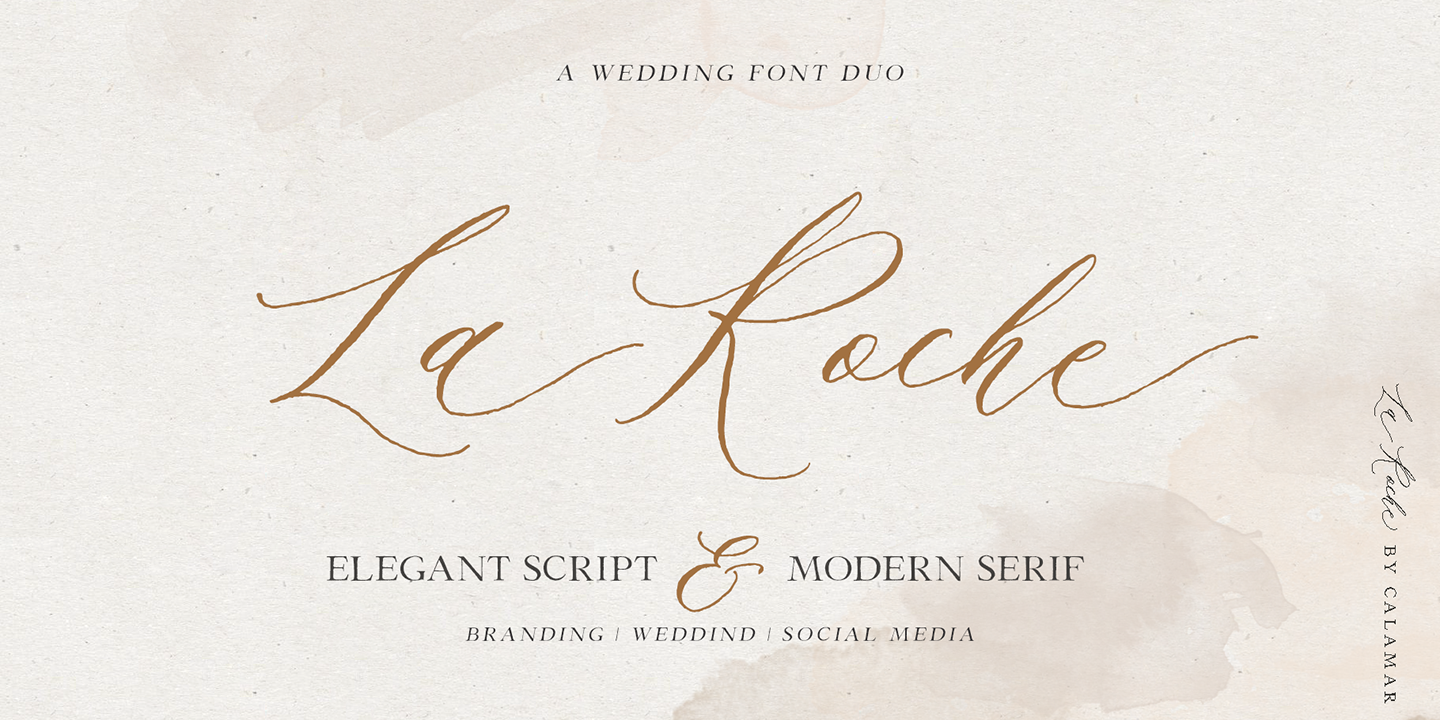
La Roche Font is perfect for luxury brand logos, high-end restaurant menus, wedding invitations, fashion magazine headlines, cosmetic packaging, jewelry branding, premium wine labels, elegant business cards, boutique hotel signage, and sophisticated editorial designs.
La Roche Font is exciting because it embodies timeless French elegance and sophistication through its refined letterforms that evoke the classic beauty of Parisian typography, creating an immediate sense of luxury and cultural refinement that elevates any design project.
The La Roche Font family includes Regular, Bold, Light, Italic, Condensed, and Decorative variants, each maintaining the distinctive elegant character while offering different weights and styles for sophisticated design applications.
Experience the epitome of typographic elegance with La Roche Font Free Download. This exquisite typeface captures the essence of French sophistication, bringing centuries of typographic tradition into contemporary design applications. The font's graceful curves and refined proportions create an atmosphere of luxury and cultural depth that resonates with discerning audiences who appreciate quality and craftsmanship.
La Roche Font transforms ordinary text into extraordinary visual experiences. Its carefully balanced letterforms draw inspiration from classical French typography while maintaining modern functionality and readability. The font's sophisticated character makes it particularly effective for luxury brands, high-end hospitality, and premium lifestyle products where conveying exclusivity and refinement is essential.
The development of La Roche Font involved extensive research into traditional French calligraphy and typography, resulting in letterforms that feel authentically European while remaining highly functional in digital applications. Each character displays subtle elegance through its proportions, spacing, and delicate details that work harmoniously to create a cohesive, premium appearance.
For designers seeking to elevate their projects, La Roche Font provides the perfect balance of tradition and innovation. It pairs beautifully with serif fonts, complements minimalist design aesthetics, and adds instant sophistication to both print and digital media. The font's versatility allows it to work effectively across various scales, from large display applications to body text, maintaining its elegant character throughout.
Whether you're creating luxury brand identities, upscale restaurant materials, exclusive event invitations, or premium product packaging, La Roche Font delivers the refined aesthetic that communicates quality and exclusivity. Its timeless appeal ensures your designs will remain elegant and relevant, making it an invaluable addition to any designer's typographic toolkit.